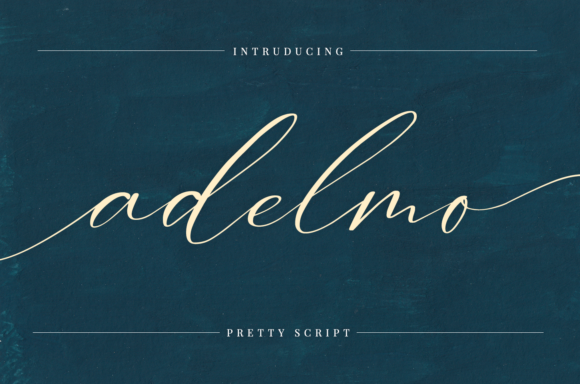
Unleash the beauty of handwritten elegance with Adelmo Font, a script that exudes timeless charm and modern sophistication. Each letter, meticulously crafted with an artist's touch, invites you to immerse yourself in the world of classic calligraphy.
Adelmo's intricate flourishes and delicate curves dance across your designs, evoking a sense of grace and sophistication. Let your words flow with the fluidity of this stunning script, capturing the essence of heartfelt messages, enchanting invitations, and captivating marketing materials.
With Adelmo Font, your designs will resonate with a timeless elegance that transcends trends. Its versatility shines across a myriad of creative applications, from heartfelt wedding invitations to captivating branding projects. Whether you seek to add a touch of refinement to your digital creations or bring a vintage charm to your print designs, Adelmo Font is your perfect companion.
Indulge in the artistry of Adelmo's details, where each stroke tells a story. Embark on a creative journey where your words become works of art, leaving an indelible impression on all who encounter them. Let Adelmo Font be your muse, guiding you to create designs that captivate, inspire, and leave a lasting legacy.